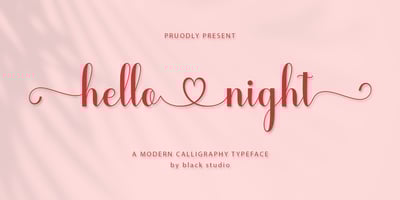
Hello Night Font Family was designed by Reza Haitami and published by Black Studio. Hello Night contains 1 styles and family package options. Hello Night is a very easy-to-read Script typeface, getting a touch of the bold, classic, and fun Vintage Script font, featuring glyphs and opentypes in alternative styles. Can be used for various purposes. such as posters, t-shirts, signboards, logos, news, badges etc. To activate the OpenType Stylistic alternative, you need a program that supports OpenType features such as Adobe Illustrator CS, Adobe Indesign & CorelDraw X6-X7, Microsoft Word 2010 or a later version.Hello Night is coded with PUA Unicode, which allows full access to all additional characters without having any special design software. Mac users can use Font Book, and Windows users can use Character Map to view and copy additional characters for pasting into your favorite text editor / application.